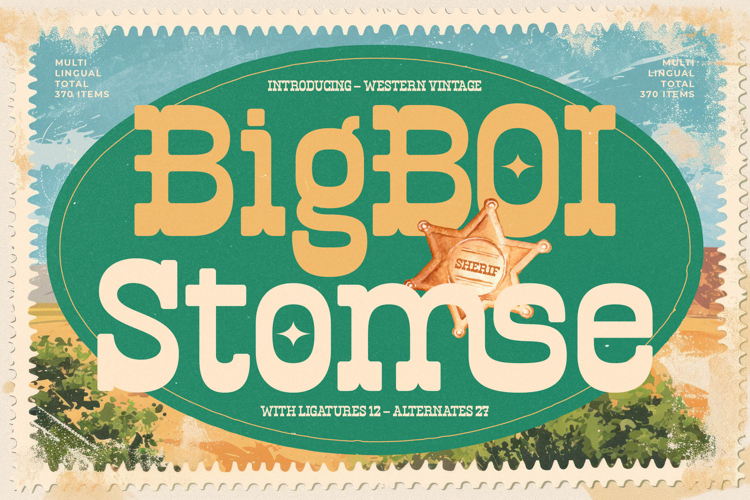
Bigboi Stomse - Western Vintage Font
Make an unforgettable statement with the commanding presence of Font Bigboi Stomse - Western Vintage Font Slab Serif. This typeface resurrects the bold, unapologetic style of classic Americana signage and mid-century packaging, delivering immense visual weight right to the headline. Characterized by its sturdy, block-like slab serifs and subtly rounded terminals, this font is meticulously engineered for maximum impact and immediate recognition in crowded visual fields, guaranteeing a loud and confident delivery of your message.
Conquer the global marketplace with seamless linguistic versatility. With its extensive multilingual support, Font Bigboi Stomse - Western Vintage Font Slab Serif adapts seamlessly across global markets, making it incredibly versatile for international projects. Furthermore, the font includes a rich collection of 12 stylish ligatures and 27 unique alternates, providing graphic designers with the power to customize and craft truly original typographic lockups tailored to their design needs.
Demand attention across all premium applications requiring authentic vintage appeal. Font Bigboi Stomse - Western Vintage Font Slab Serif is the perfect choice for high-end craft food and beverage packaging, dynamic apparel design, bold music album artwork, and impactful cinematic posters. It excels particularly in branding environments seeking a fusion of nostalgia and contemporary boldness, ensuring your project achieves a distinct, memorable persona that stands out from the competition.
Elevate your design aesthetic immediately by integrating this iconic display asset into your library. The unique visual quirks and substantial weight of Font Bigboi Stomse - Western Vintage Font Slab Serif ensure remarkable legibility even at monumental sizes, making it an indispensable tool for headline typography and logo creation. Invest in a font that doesn't just display text—it tells a bold, professional story, cementing its place as an essential element in any high-quality designer's toolkit.